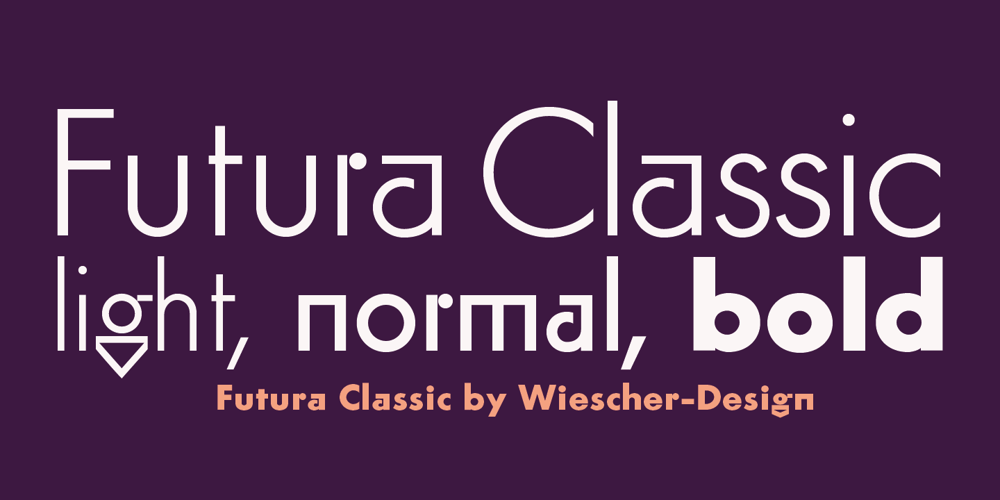
Futura Classic
Futura Classic font
Futura Classic Font Family was designed by Gert Wiescher, Paul Renner and published by Wiescher Design. Futura Classic contains 3 styles and family package options. FuturaClassic is a recut of Paul Renners original Futura. This version was what Mr. Renner wanted the Futura to look like. He had to change his very stringent design because the market wanted a more pleasing typeface. I think the original design is worth saving because it is much more typical and has a personal and distinguished touch. I have also designed Geometra Rounded with rounded endings that looks more interesting than your usual DIN type Yours trying to save the typographical past Gert Wiescher